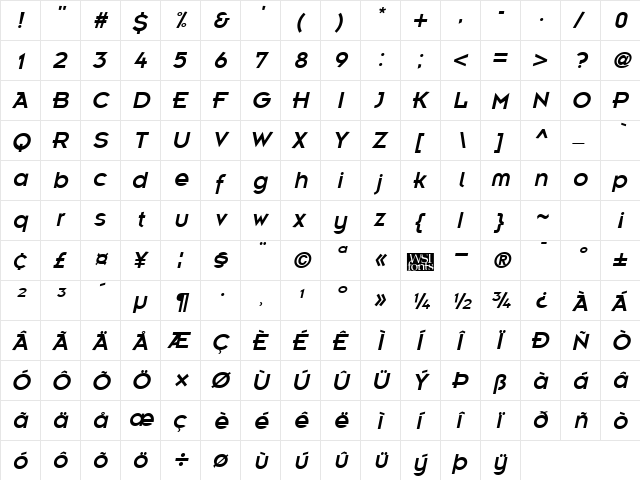
Emblem Italic
Design Context for Emblem Typeface
Emblem is a composed and adaptable typeface that performs quietly and consistently across a wide range of design contexts. The slanted form adds forward momentum and visual energy.
Pro Tip: Try Emblem for annotation and caption copy alongside an upright companion — the contrast in angle creates a dynamic but ordered typographic system.